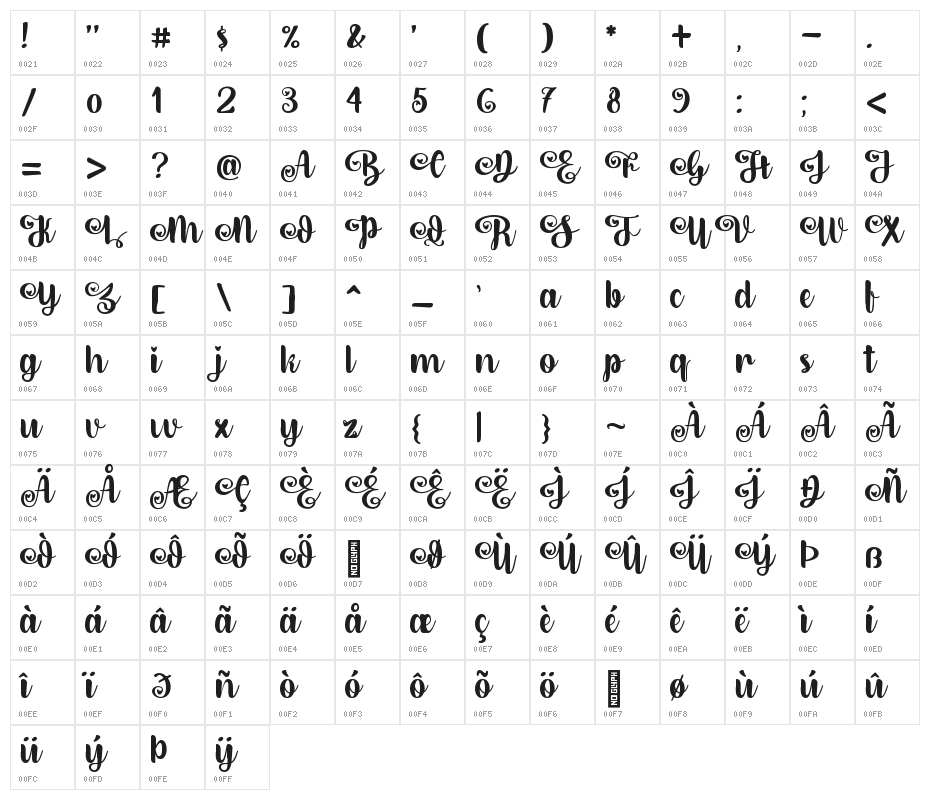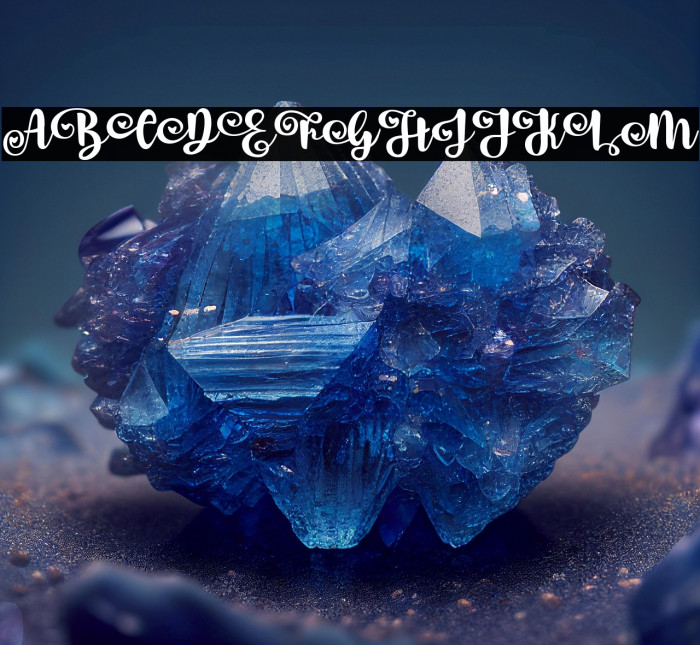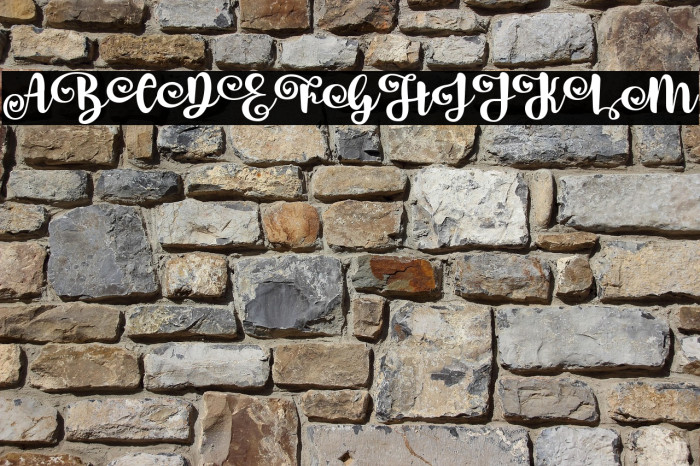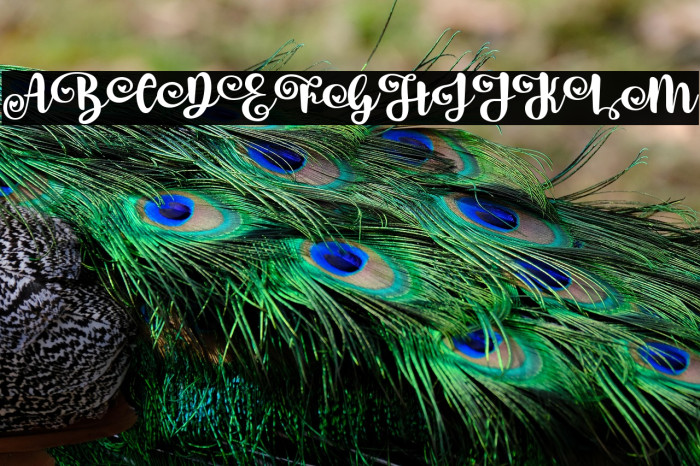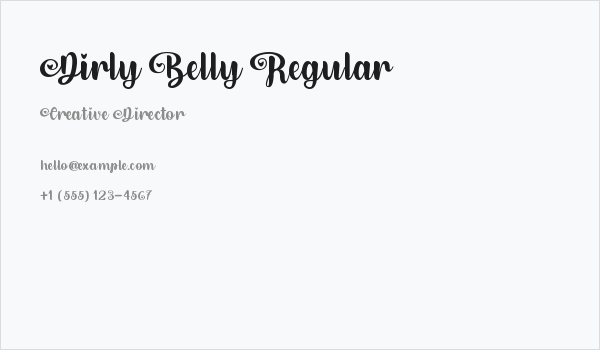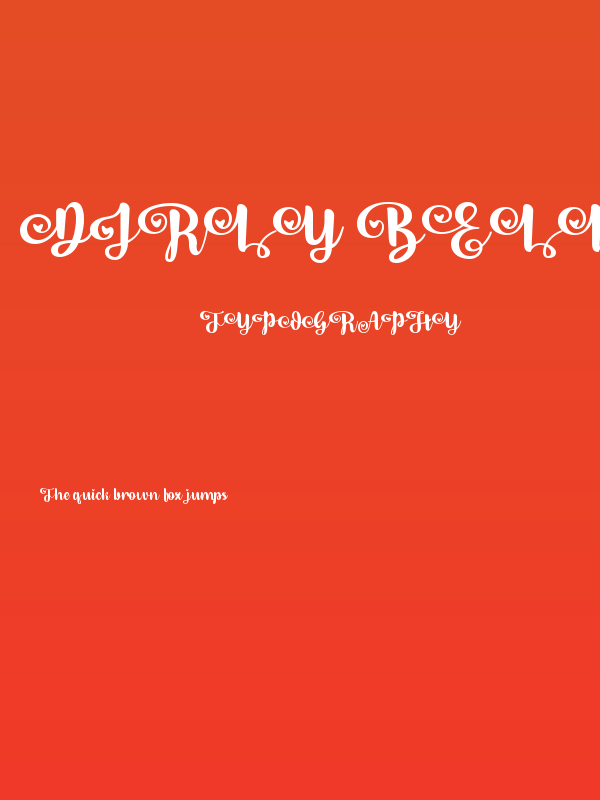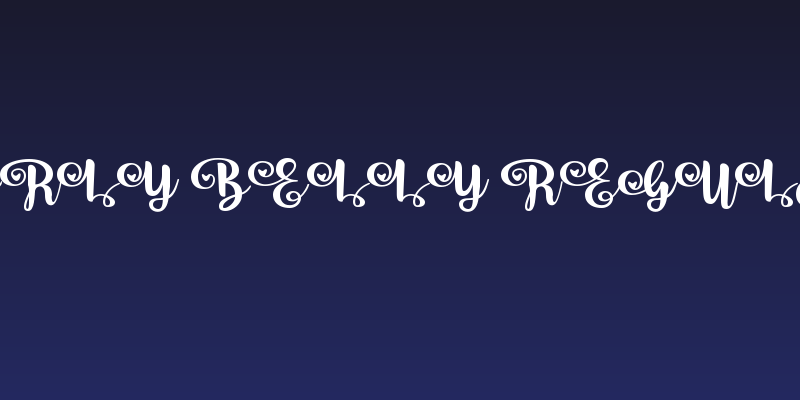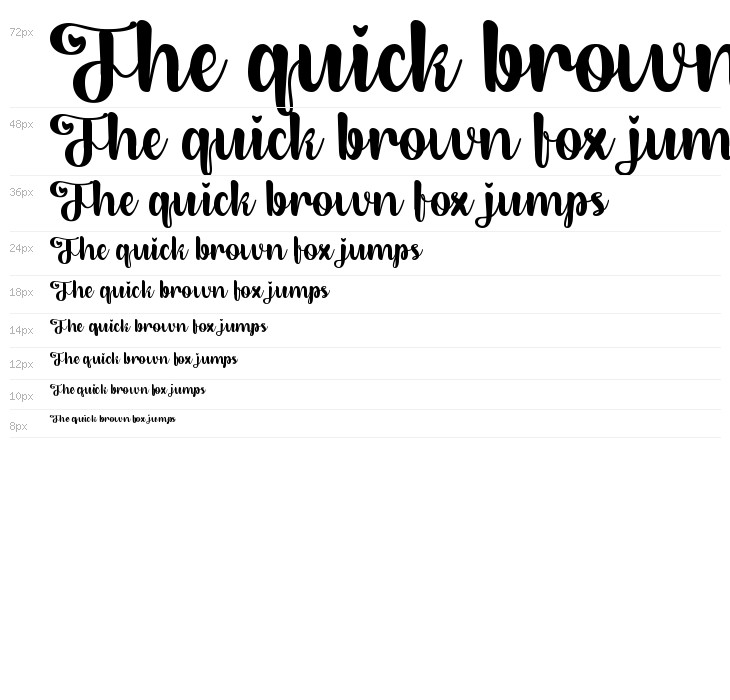
Dirly Belly Regular Font
Dirly Belly Regular Description
This font features a playful and whimsical script style with a bold presence. The characters are interconnected with elegant swirls and loops, giving it a lively and dynamic appearance. The uppercase letters are particularly ornate, with decorative flourishes that add a touch of sophistication. The lowercase letters maintain a consistent flow, enhancing readability while preserving the font's artistic flair. Numbers and special characters are designed to match the overall style, ensuring a cohesive look across all text elements.